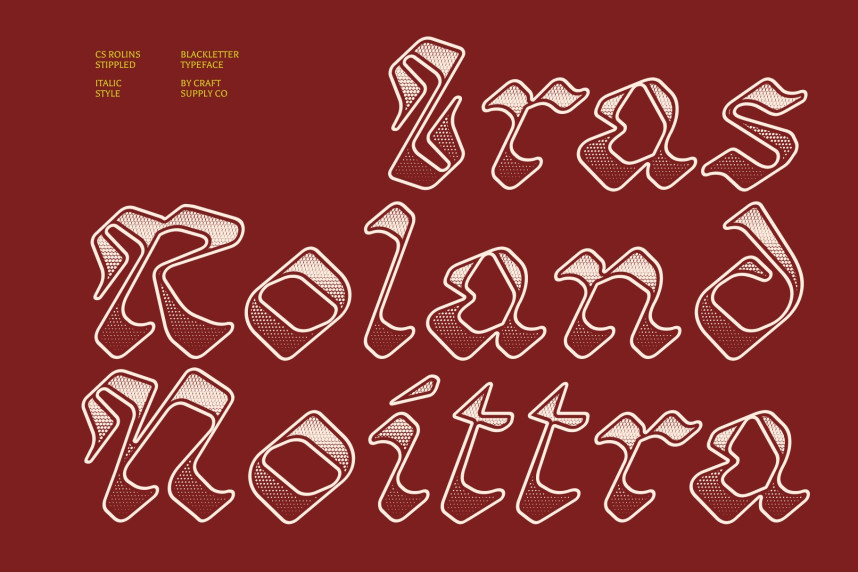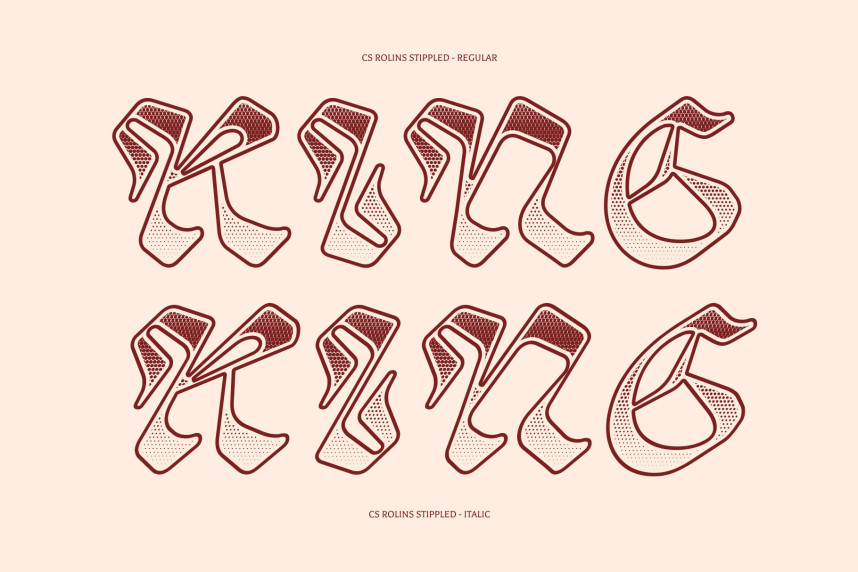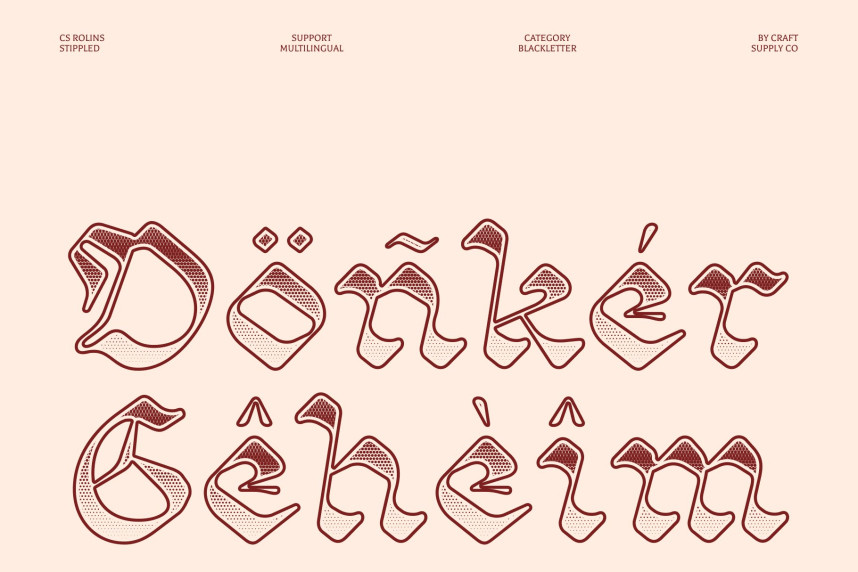
CS Rolins Stippled Font
CS Rolins Stippled Font – Ornate Blackletter Font
Classic Blackletter with Rounded Elegance
This is an ornate Blackletter display font that blends historic tradition with softened, rounded letterforms. This subtle rounding introduces a more approachable and contemporary feel while preserving the dramatic personality of classic Blackletter typography. Enhanced with a stippled texture, the font gains a handcrafted, vintage print effect that adds depth and visual richness to every letter.